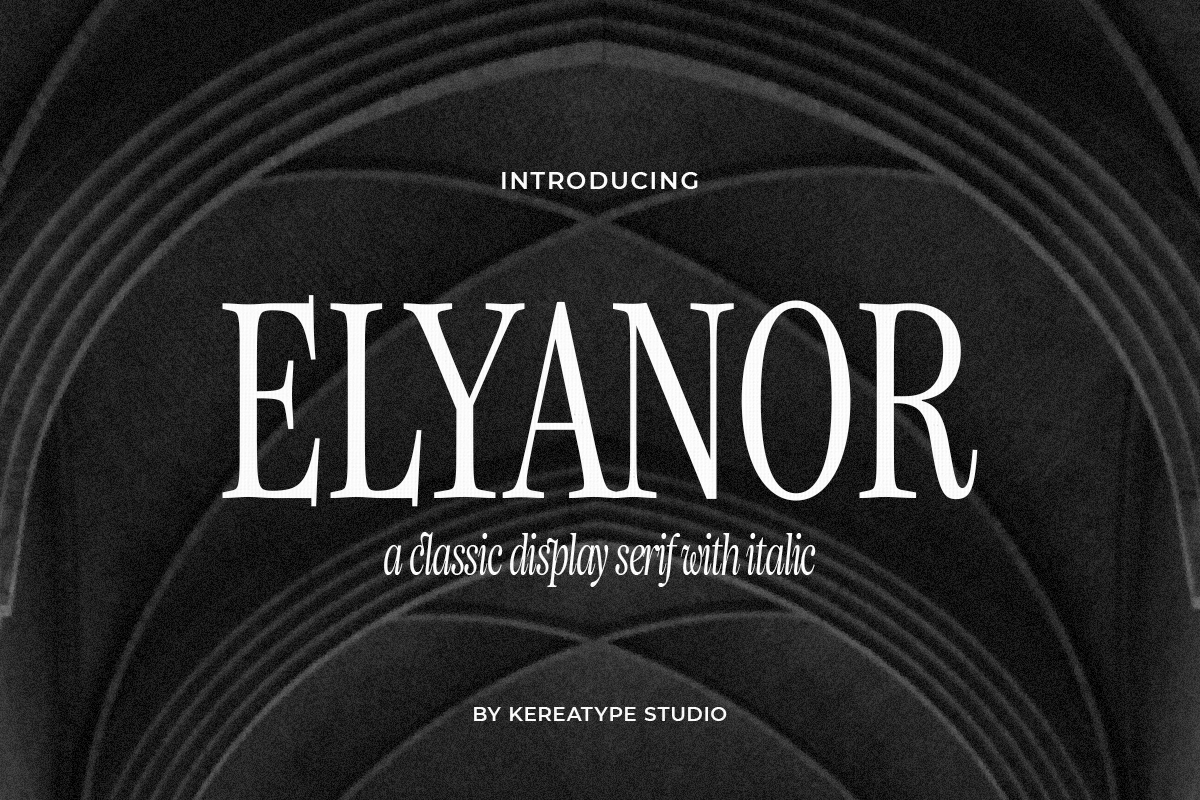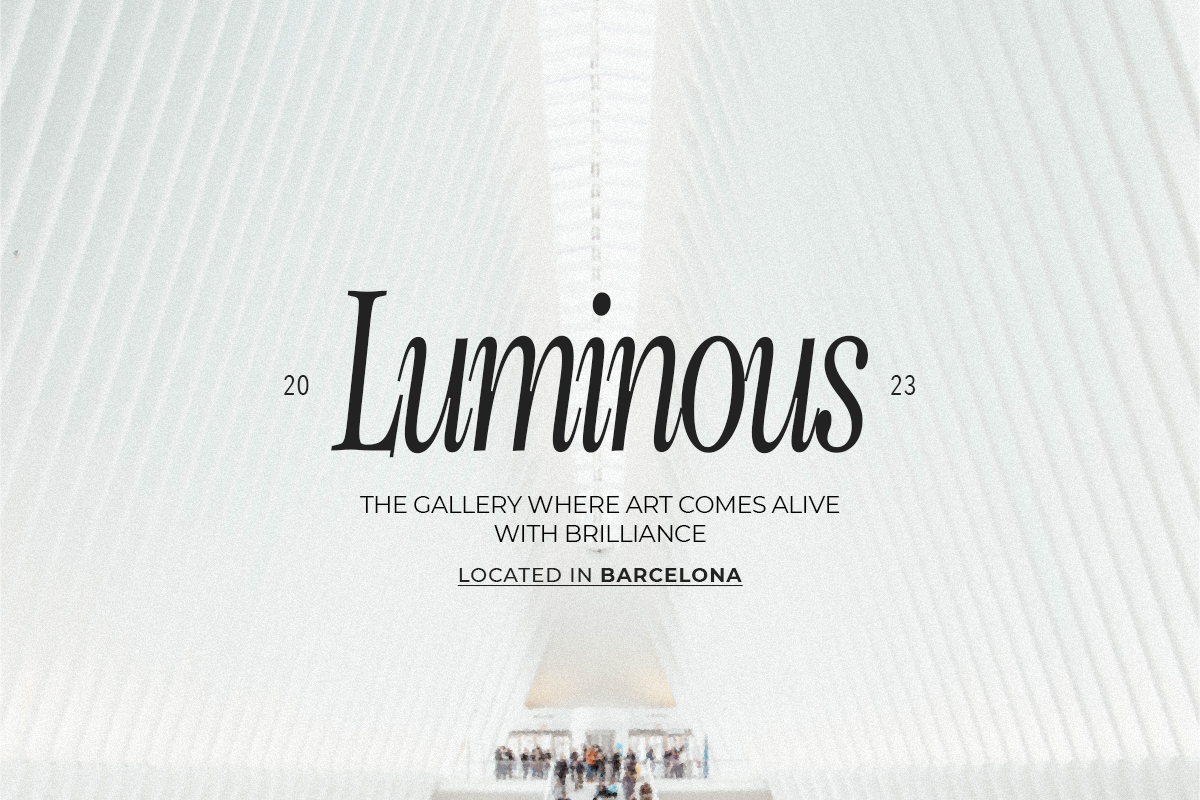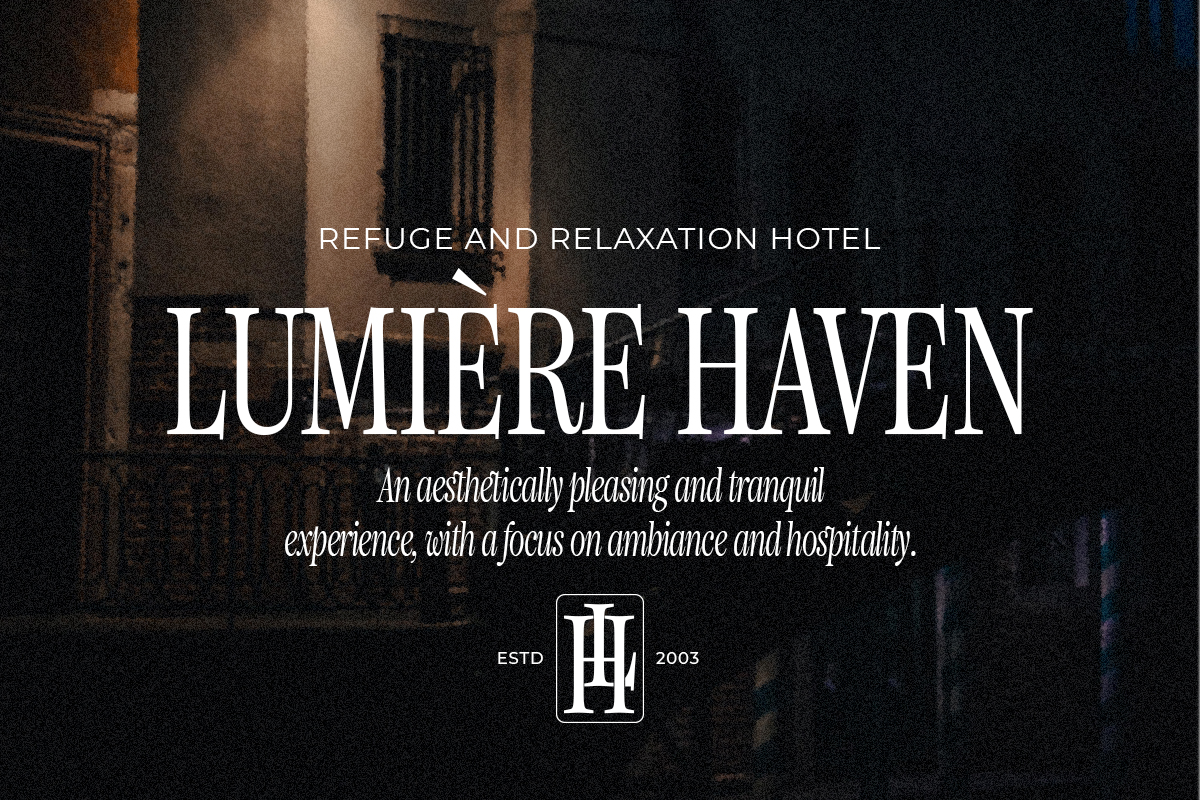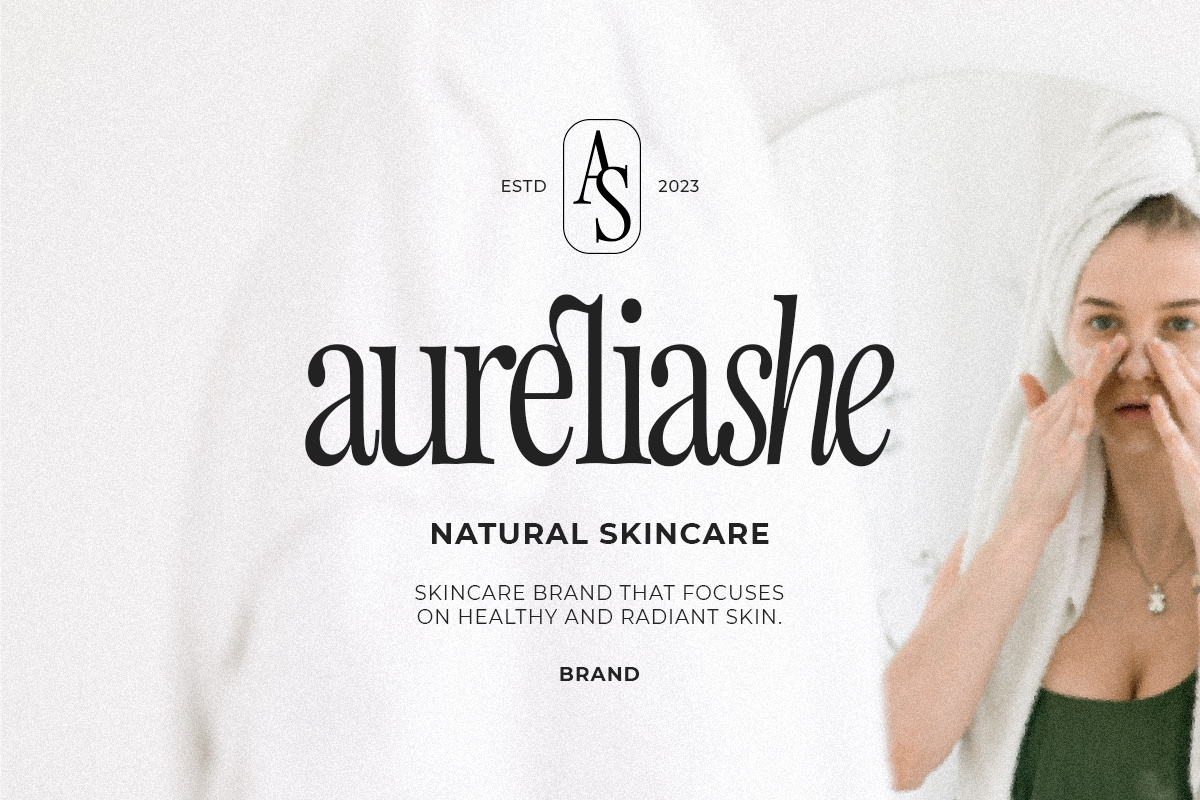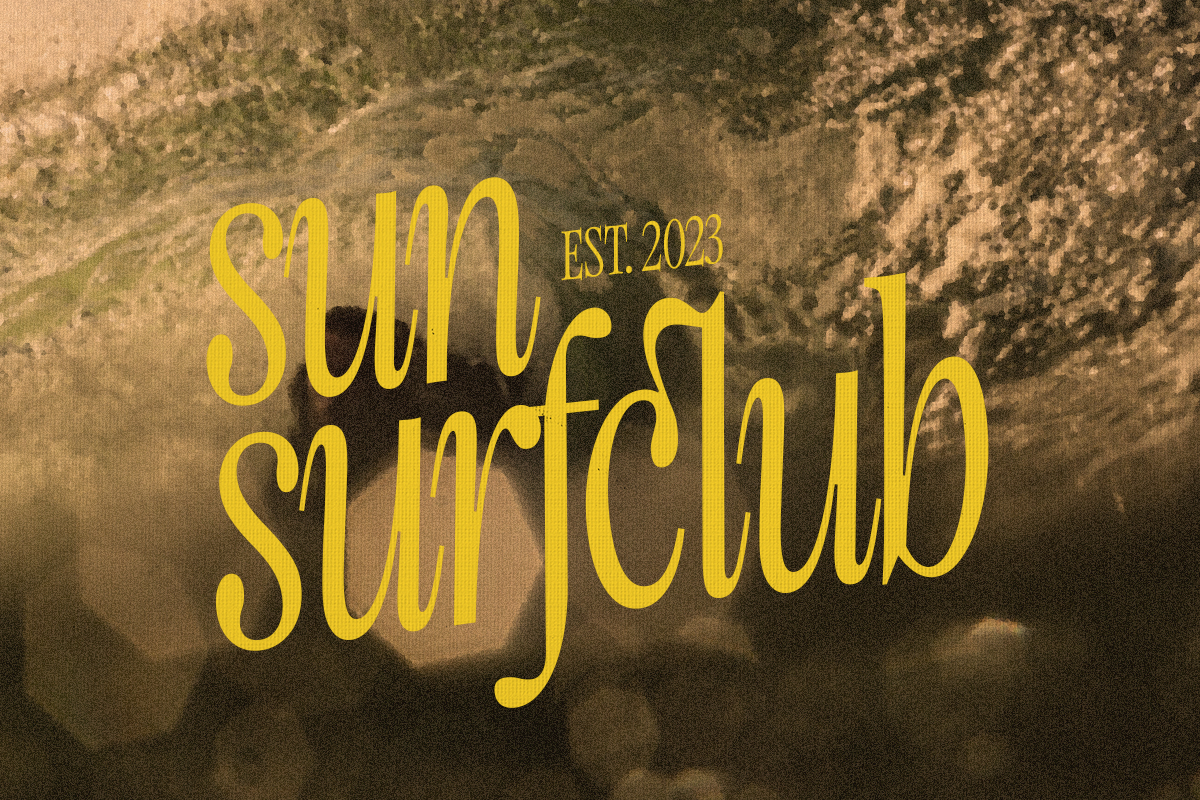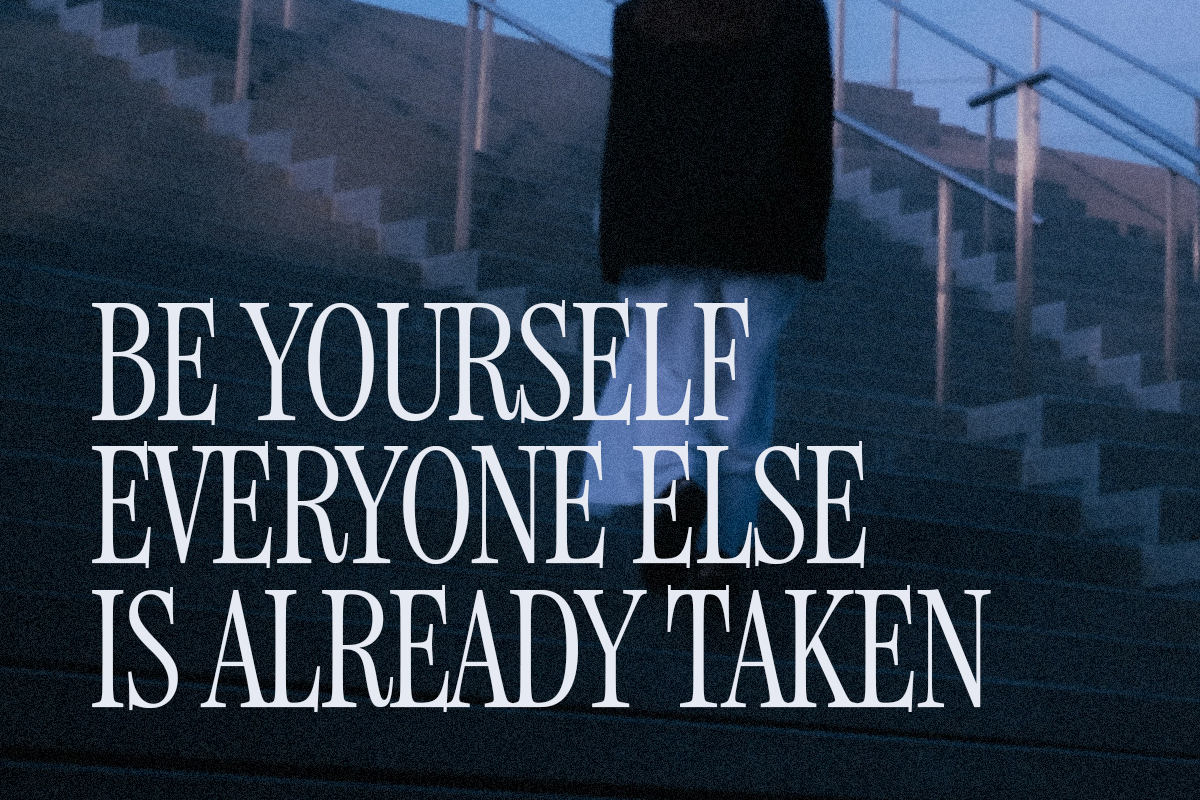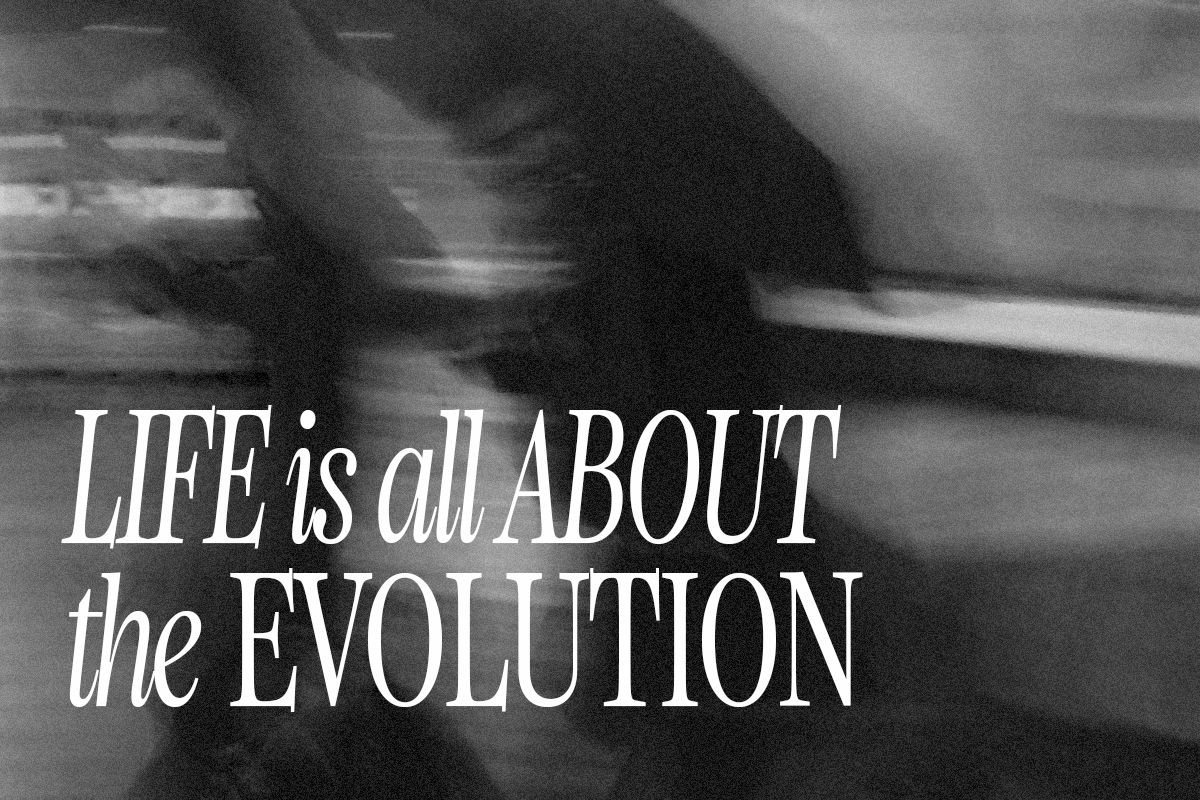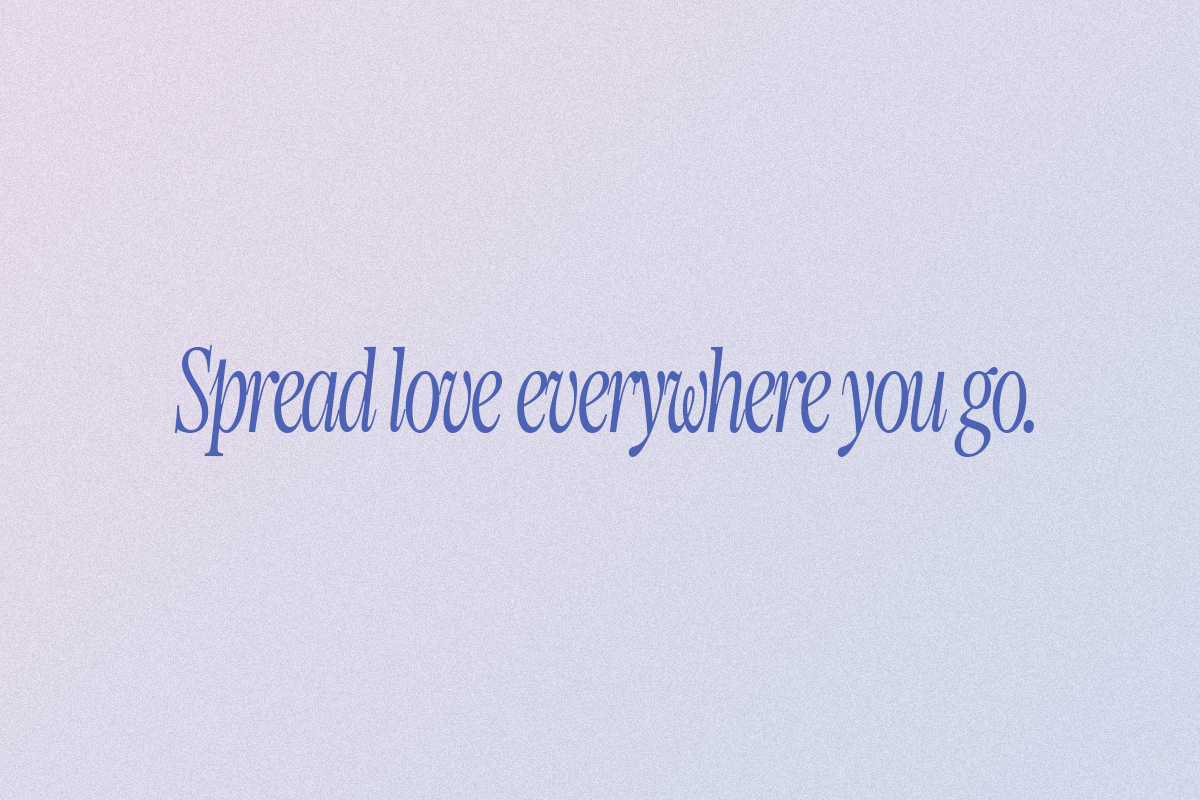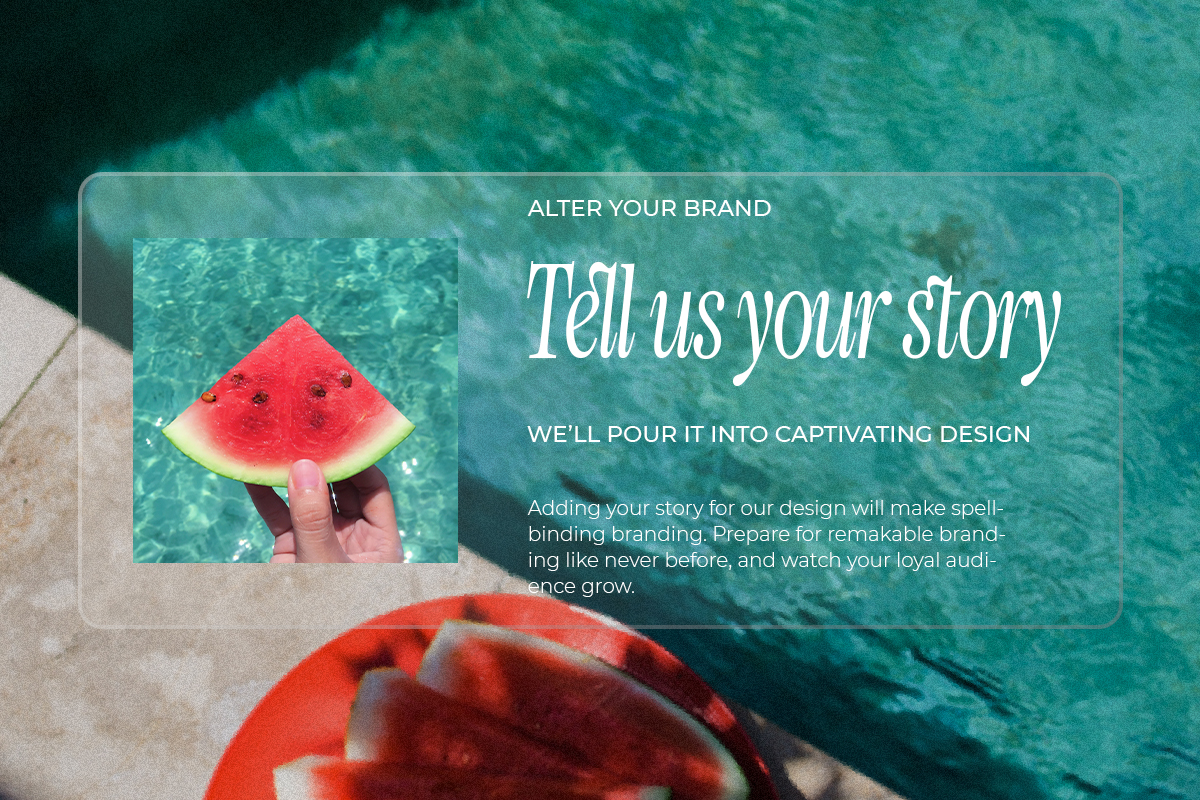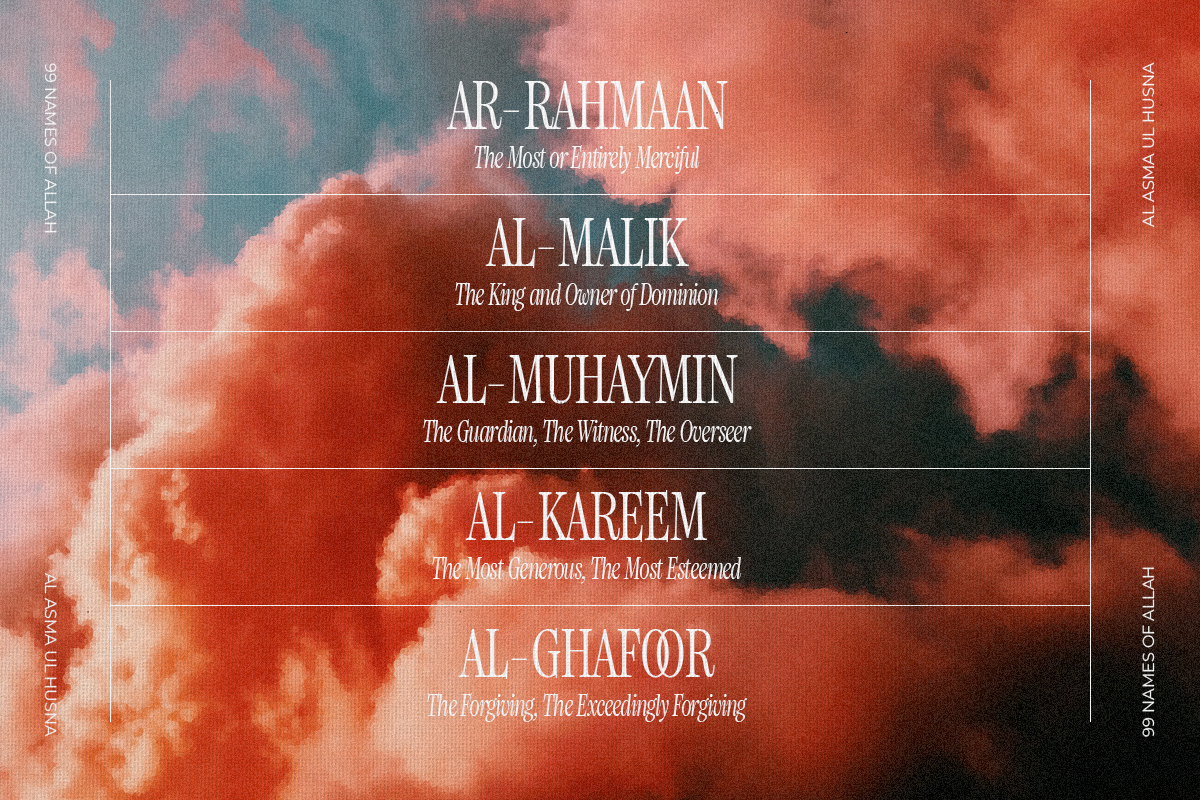
Elyanor
A Sophisticated Modern Serif Family Inspired By French Renaissance Elegance For High-Fashion Branding, Editorial Layouts, And Luxury Wedding Stationery.
Classic Sophisticated Modern High-Fashion Serif
Elyanor is a sophisticated display serif family that masterfully bridges the gap between classic French Renaissance elegance and high-fashion modern editorial design. Available in regular and italic styles, this font features sharp serifs and refined contrast that create an immediate impact for premium logos, luxury packaging, and wedding suites. Whether utilized for bold, eye-catching headlines or elegant, readable body text, Elyanor brings a timeless sense of strength and grace to every layout. Its distinctive character makes it an essential tool for designers seeking to establish a memorable identity in editorial magazines, monograms, and sophisticated branding projects.
Classic Sophisticated Modern High-Fashion Serif